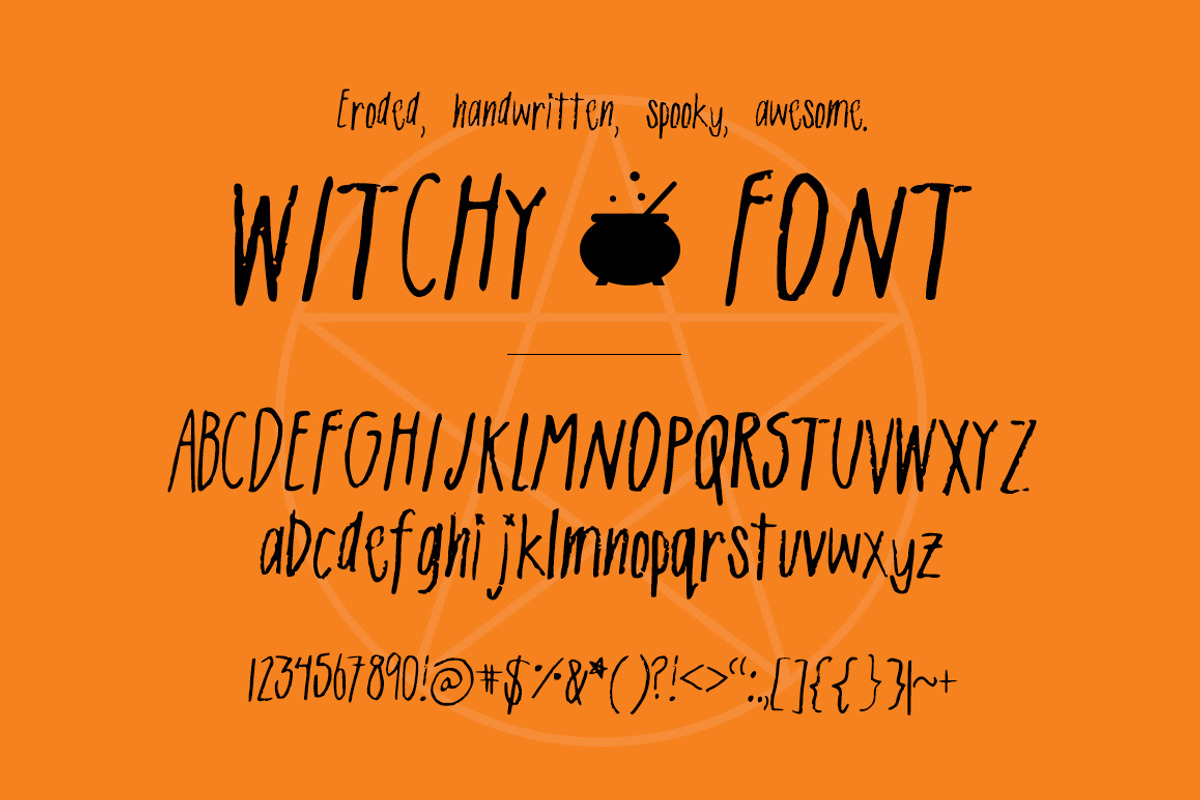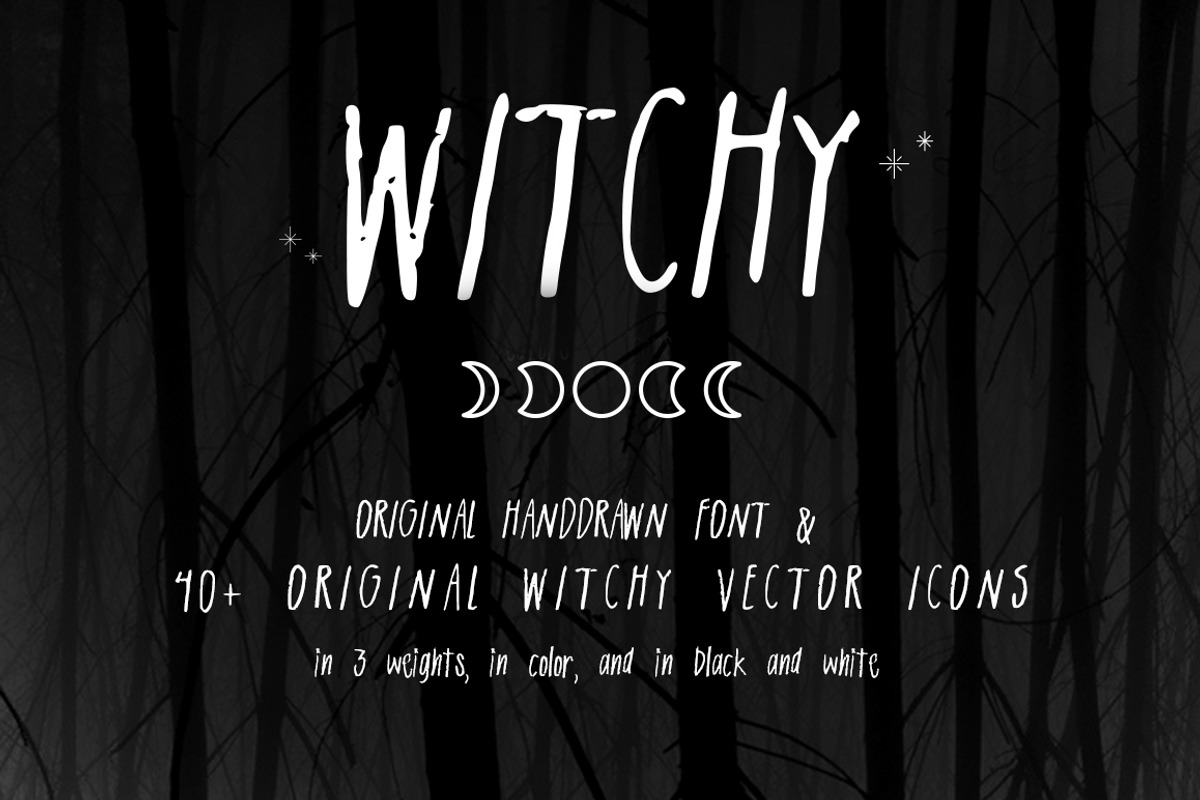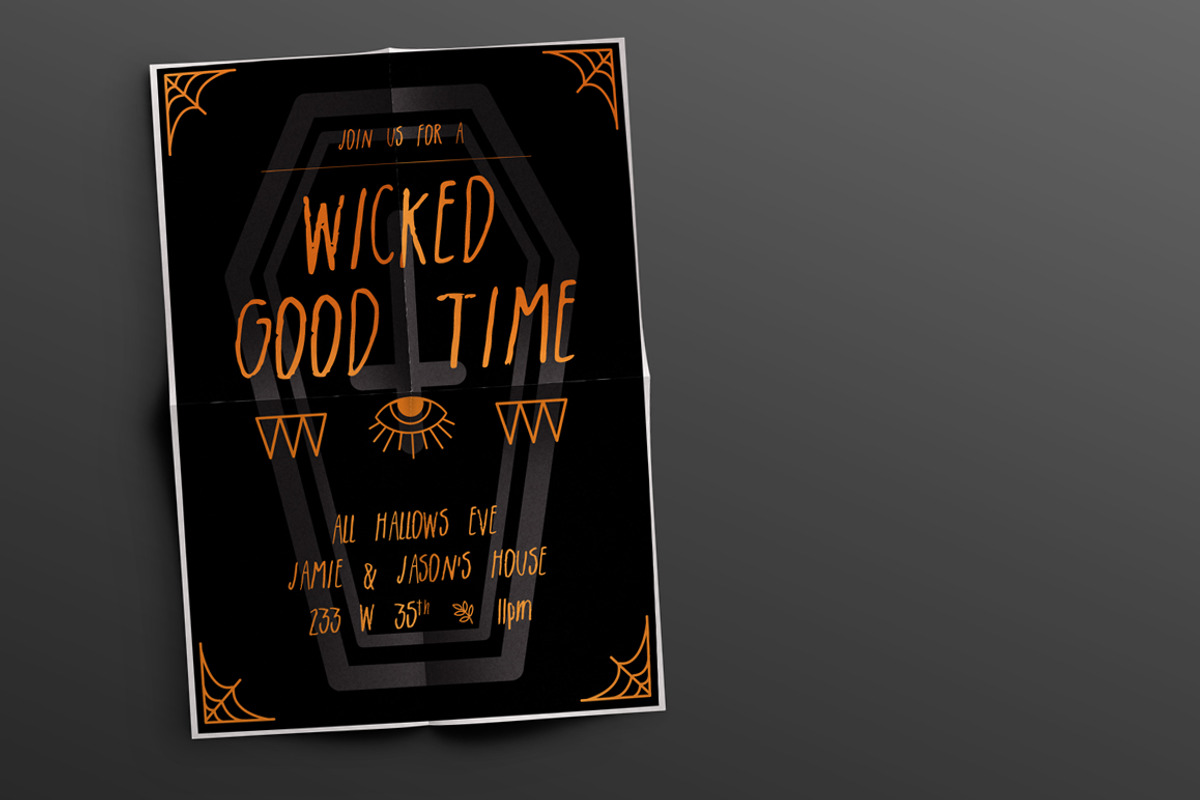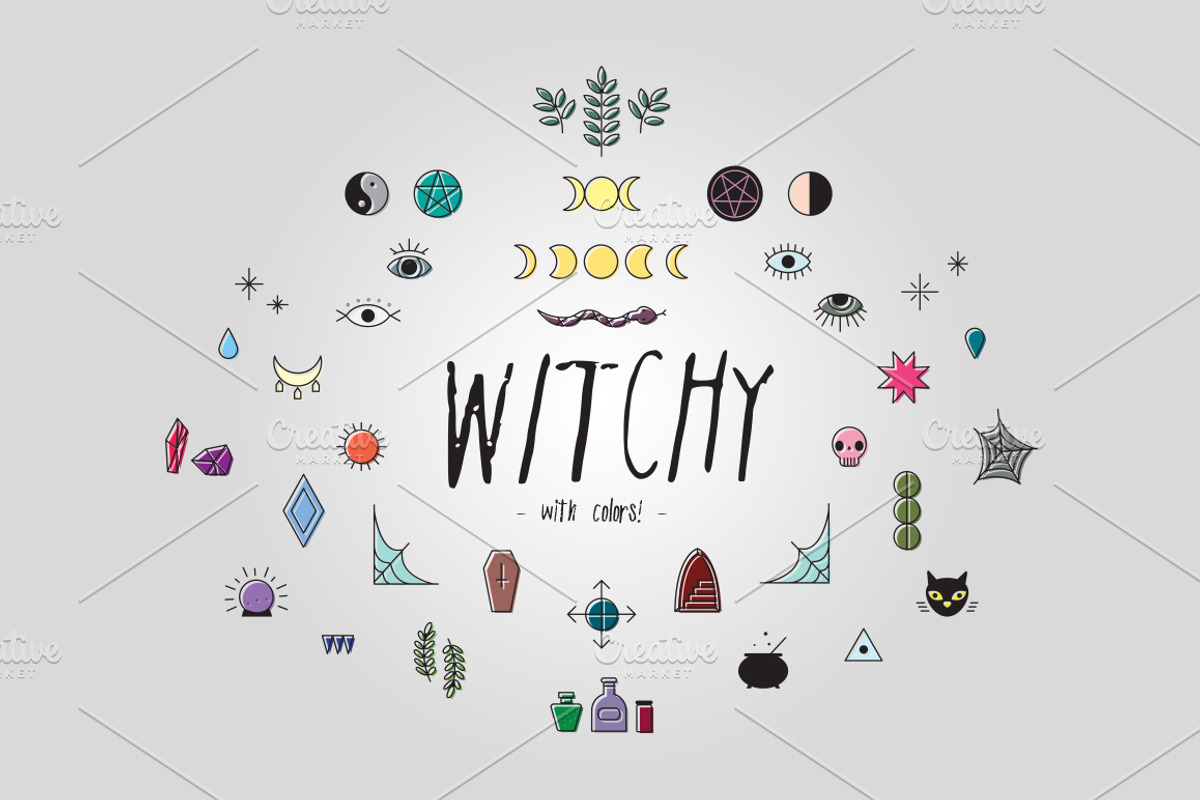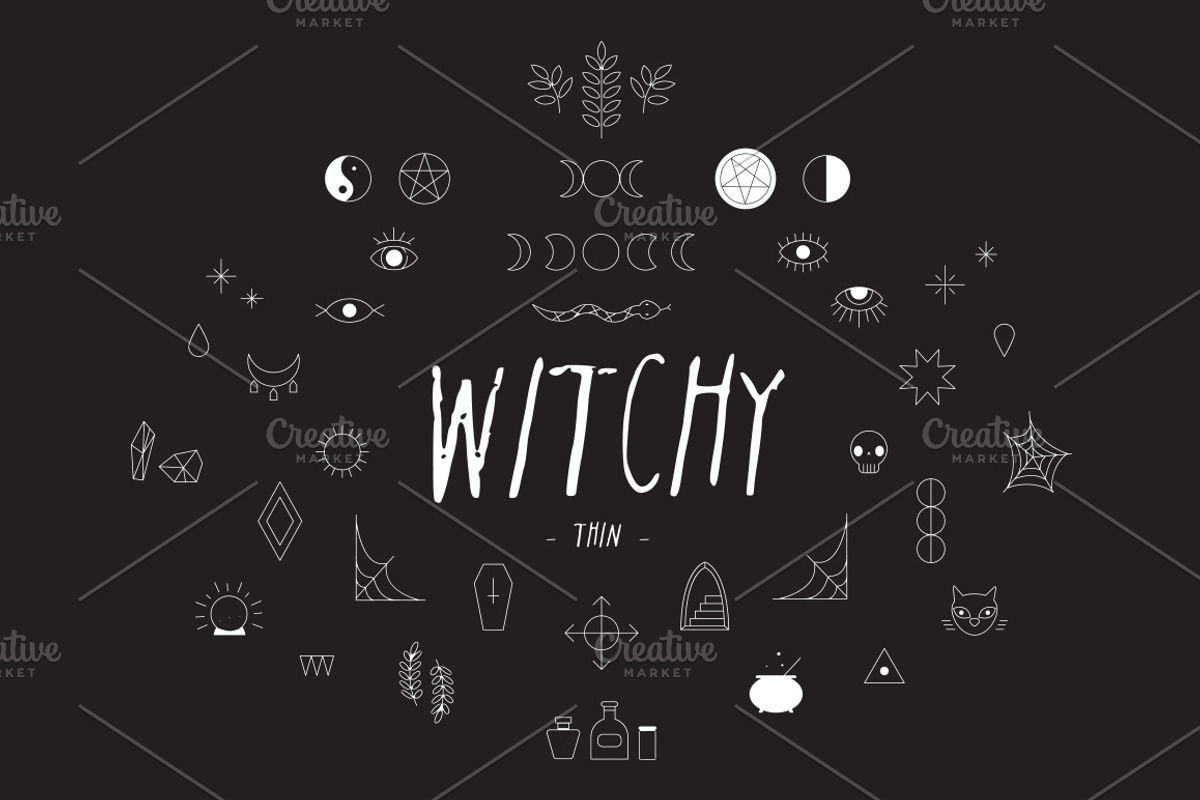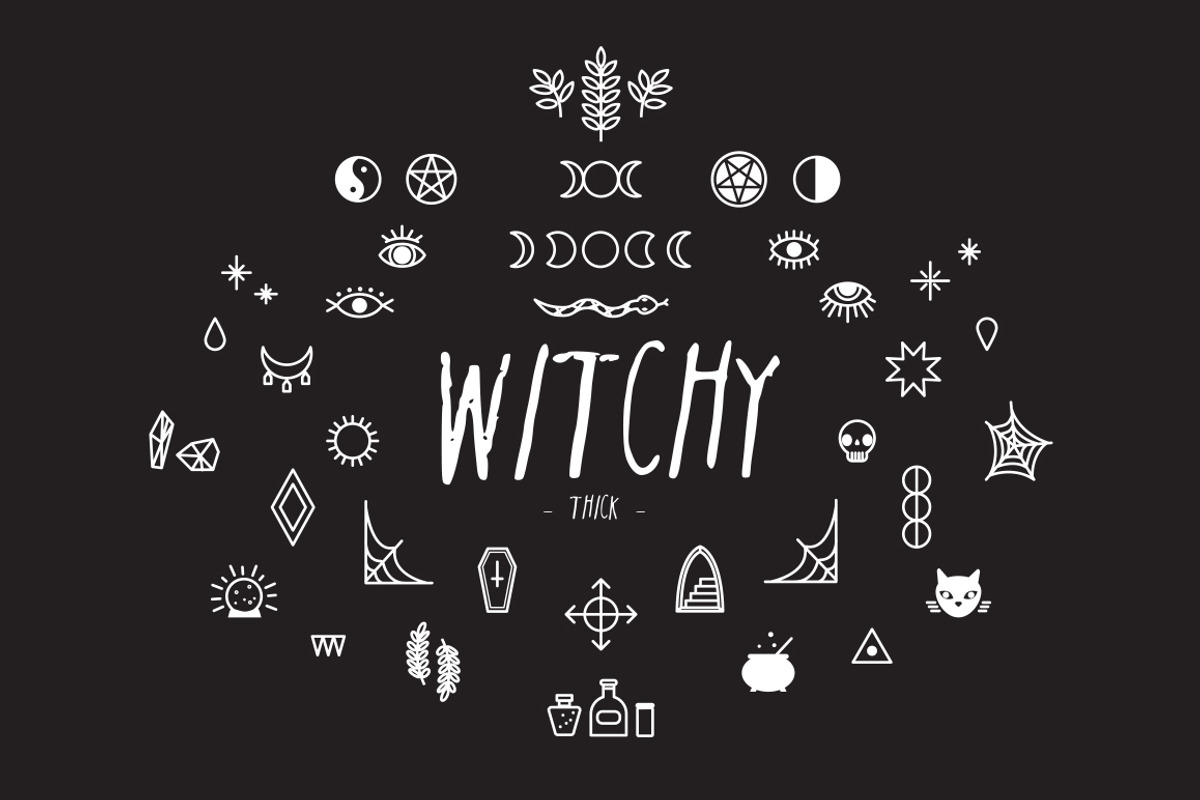
Witchy: Vector Pack + Font
Witchy: Vector Pack + Font by Midnight Grim is a font selected for branding, posters, packaging, typography.
- Witchy comes with over 40 original vector illustrations and an originally SPOOooOOOooOKY font perfect for cards, icons, website design, blog
Why Witchy: Vector Pack + Font is worth a look
Witchy: Vector Pack + Font by Midnight Grim fits naturally into Branding, posters, packaging, typography.